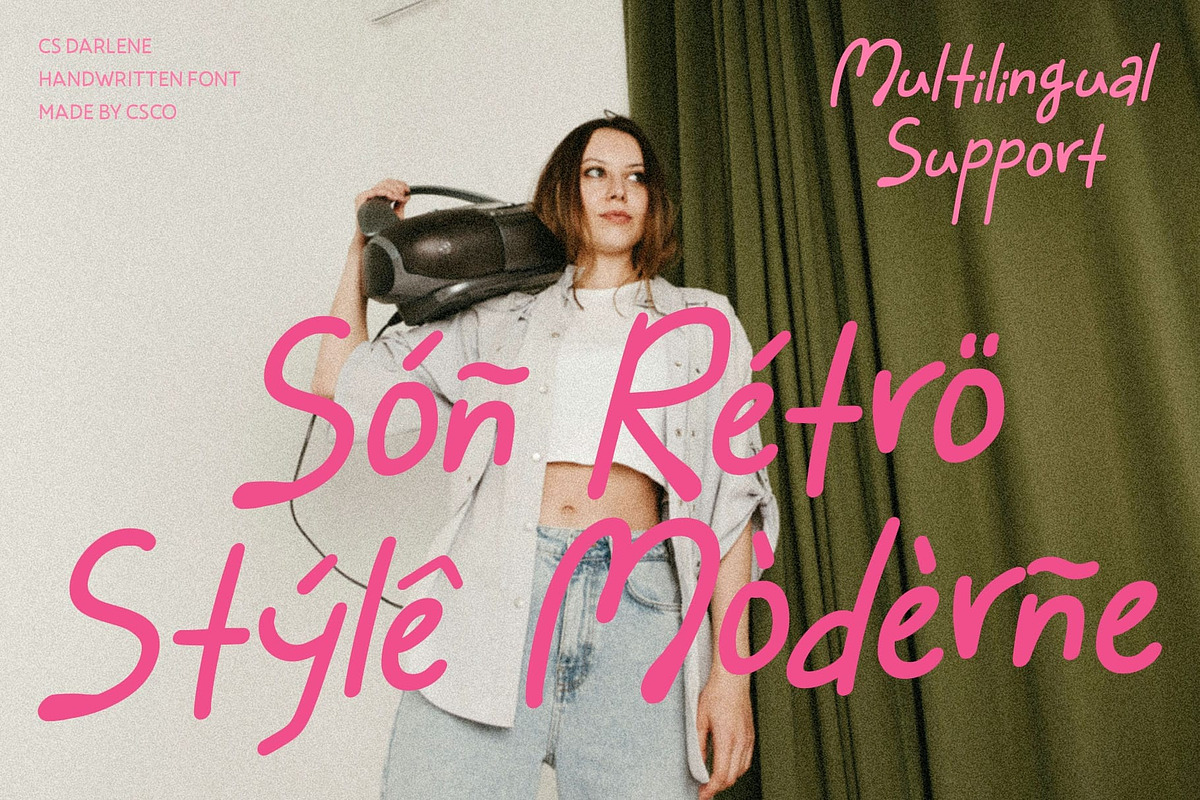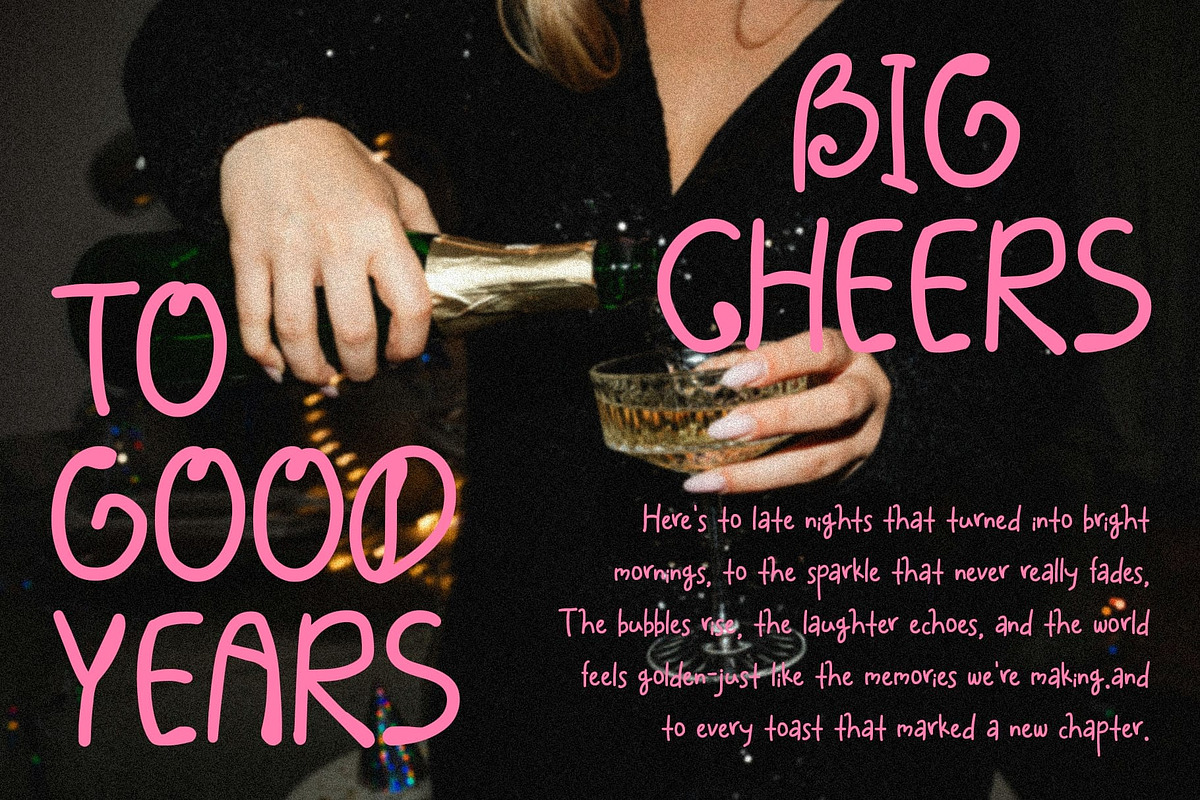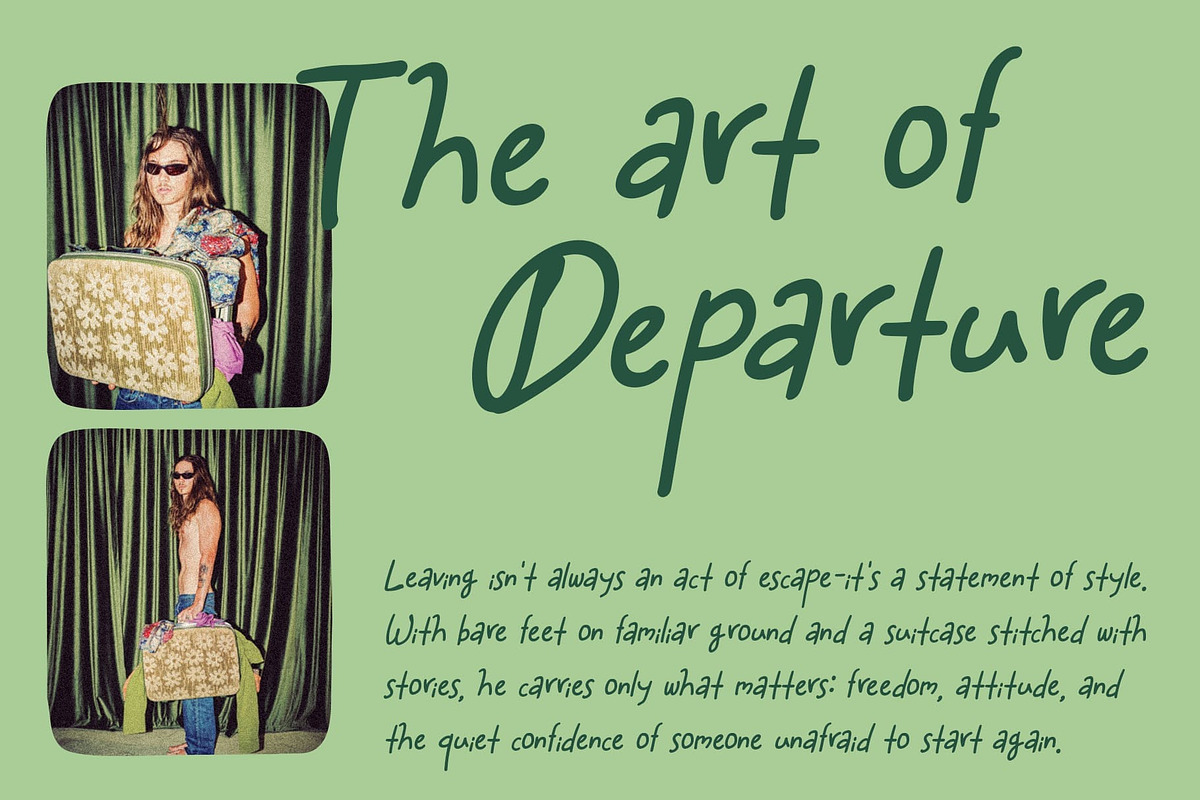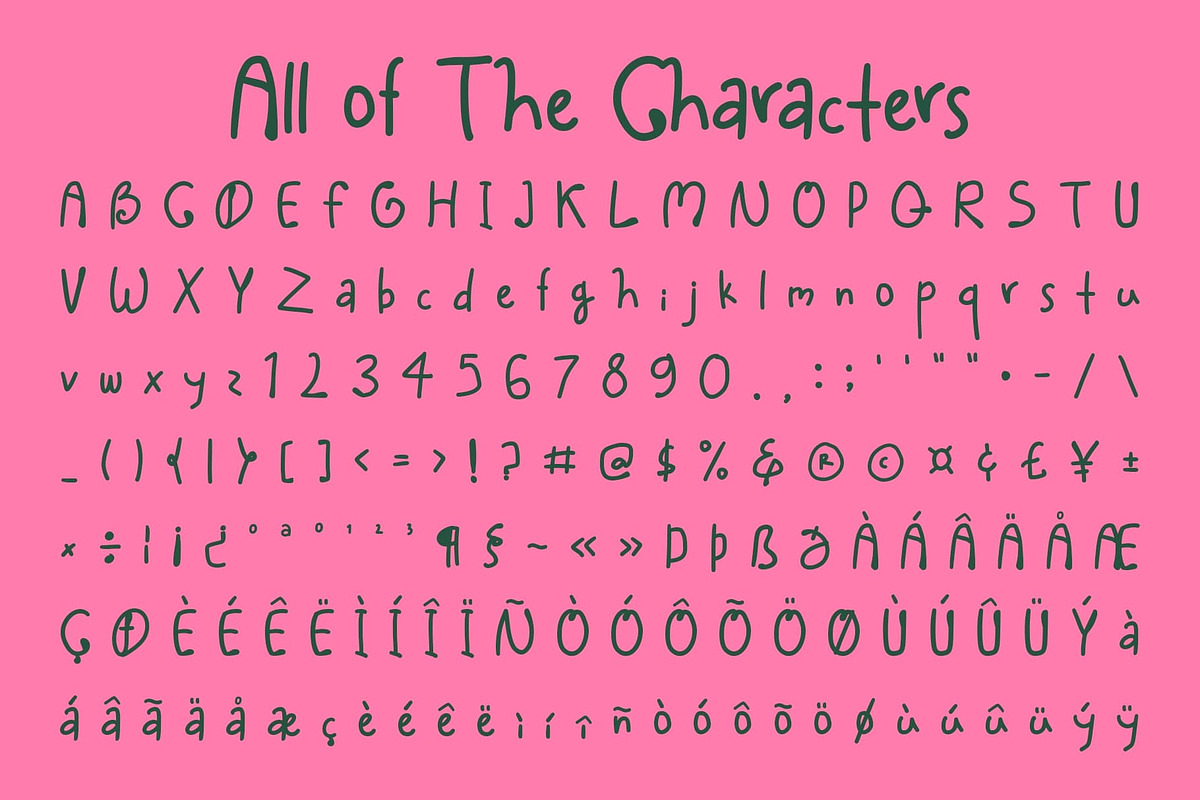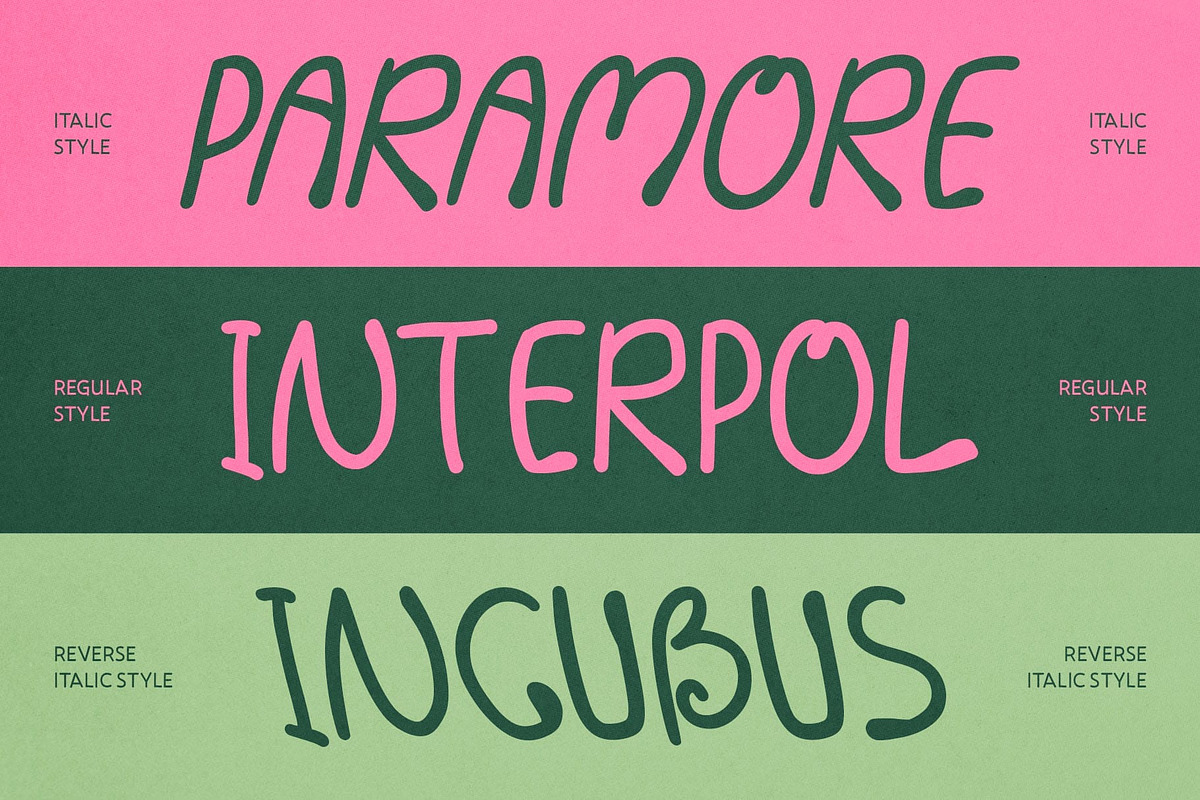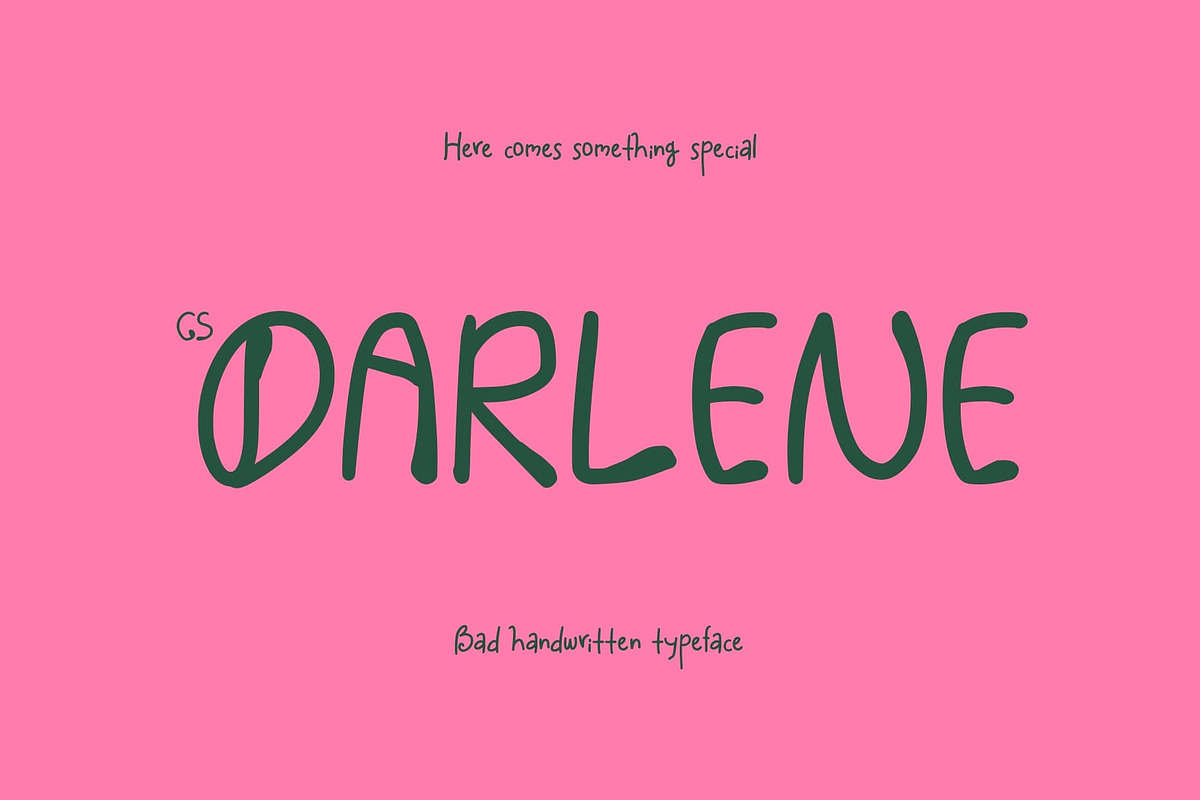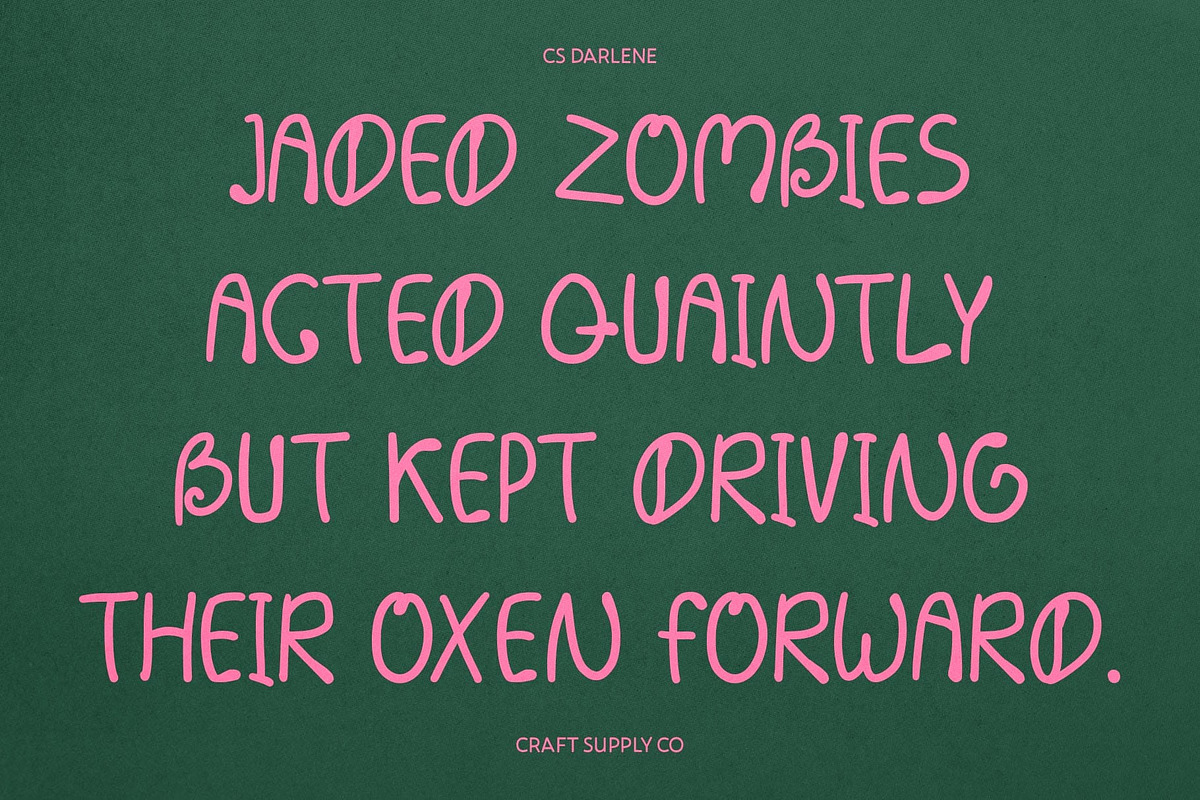
CS Darlene – Bad Handwritten Font
CS Darlene – Bad Handwritten Font with Overflowing Energy: Imperfectly Playful and Full of Personality
Expressive Form with a Raw Handwritten Style This is a embraces imperfection with confidence and combination sans serif font. Designed as a bad handwritten font, it features overflowing ink strokes and quirky, uneven shapes that create a lively, spontaneous feel. Combination sans serif make this font Each letter carries personality, bringing a sense of authenticity and youthful rebellion to your design.
Playful Imperfection for Creative Freedom The intentionally rough and “ugly” aesthetic gives this its charm carefree, and full of motion. Its natural irregularities add a human touch, making it perfect for projects that aim to look fun, expressive, and unpolished in a stylish way.
Energetic and Friendly Appeal With its vibrant flow and unique texture, this font radiates friendliness and creativity. It breaks away from perfection, turning imperfections into a visual language of confidence and individuality.
Perfect for Youthful and Casual Projects Ideal for youth branding, greeting cards, posters, or casual design projects, this font transforms simplicity into bold expression. It’s the perfect choice for designers who want to showcase energy, spontaneity, and authentic hand-drawn charm in their work.